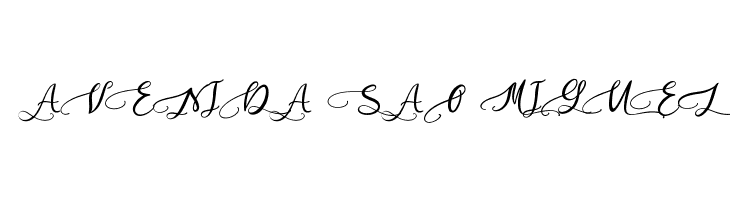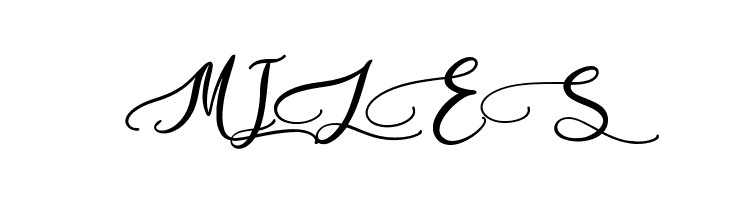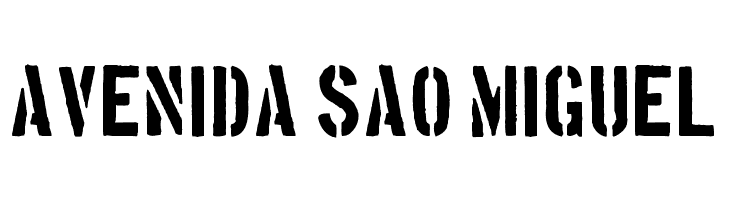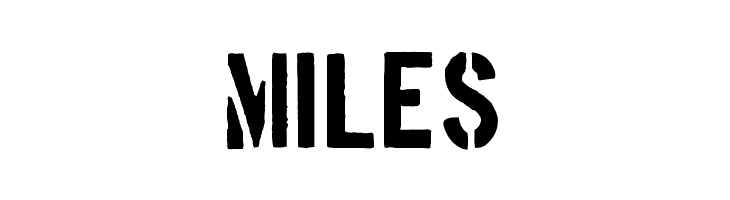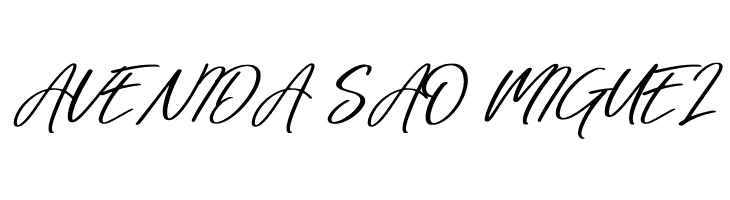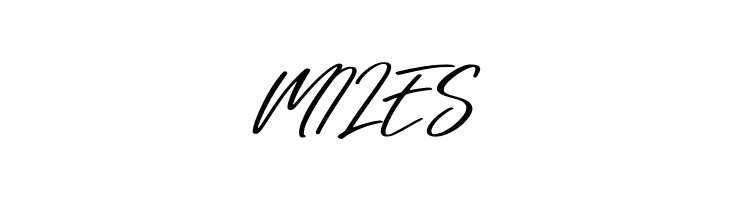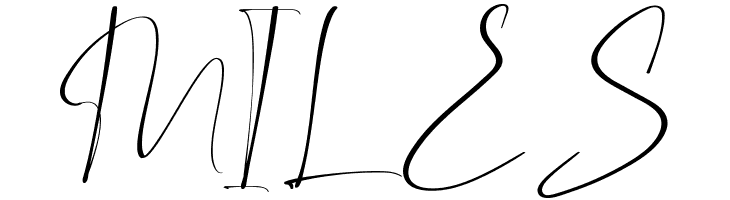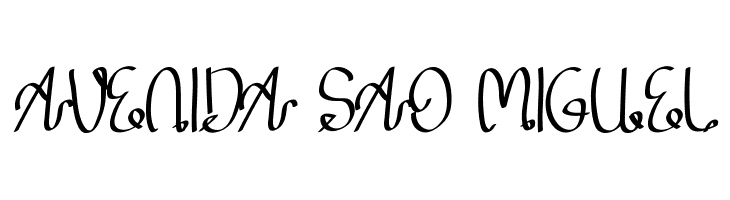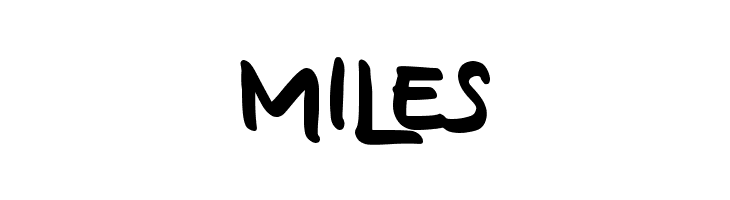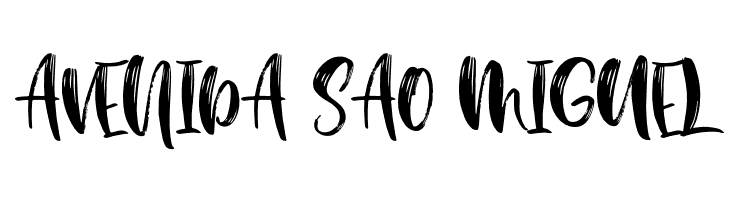
A bold, graffiti-inspired font with a playful and dynamic style.
An elegant script font with flowing, interconnected letters and ornate flourishes.
A bold, brush-stroke font with a dynamic, hand-painted style.
A decorative font with intricate swashes and a calligraphic style.
A playful, hand-drawn font with whimsical characters and decorative flair.
A playful, hand-drawn font with a whimsical and energetic style.
A playful, rounded font with geometric elements and consistent stroke widths.
An elegant, flowing script font with intricate strokes and high contrast, perfect for refined projects.
A bold, stencil-style font with an industrial and rugged appearance.
A dynamic and elegant script font with fluid, cursive letterforms.
A bold, expressive script font with a hand-drawn, artistic style.
A bold, expressive script font with dynamic brush strokes and a handcrafted feel.
A lively handwritten font with fluid, expressive strokes and a playful bounce.
A lively handwritten font with fluid, cursive strokes and a personal touch.
A lively and expressive handwritten font with fluid, dynamic strokes.
A lively and expressive handwritten font with fluid, cursive strokes.
A bold, expressive brush script font with dynamic strokes and artistic flair.
A bold, energetic script font with a hand-drawn, brush-like texture.
Hand-drawn botanical doodles with a whimsical, organic style.
Hand-drawn botanical and geometric decorative set.
An elegant and sophisticated cursive font with decorative swirls.
An artistic, cursive-like script with decorative swirls and loops.
A casual, elegant handwritten script font with smooth, flowing strokes.
A modern, handwritten font with fluid, elegant strokes.
A bold, expressive script font with modern, flowing curves and artistic flourishes.
A diverse set of black and white botanical illustrations with varying levels of detail.
An ornate and decorative font with intricate swirls and flourishes.
Botanical illustration font with plant and nature motifs for each character.
A dynamic script font with smooth, flowing lines and a modern touch.
A bold, distressed font with a vintage, textured appearance.
A bold, handwritten font with playful curves and a casual, dynamic style.
A lively, expressive handwritten font with dynamic strokes and playful characters.
A bold, flowing script font with elegant, cursive letterforms and medium contrast.
A bold, cursive font with elegant, flowing lines and decorative flourishes.